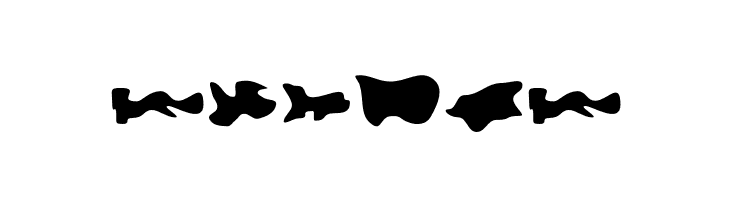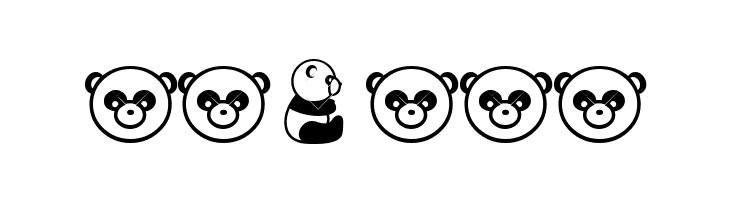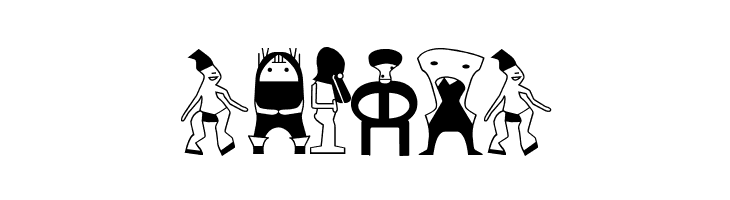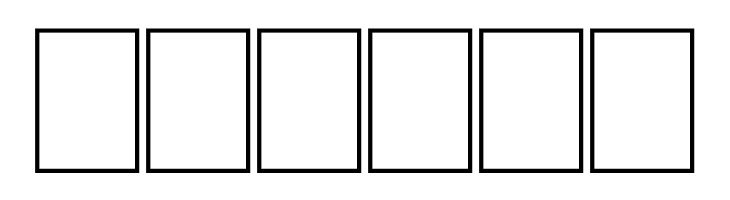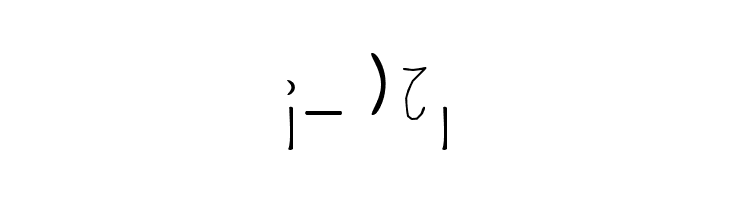
An abstract, bold font with fluid, organic shapes.
A decorative, bear-themed pictogram font.
A decorative font featuring unique doll figures for each character.
A whimsical, character-based decorative font with abstract cartoon figures.
A bold, geometric font with a distinct shadow effect for a three-dimensional look.
A modern, rounded sans-serif font with a clean and approachable style.
Superhero silhouette font with bold, action-packed character shapes.
A display font made from weapon and tool silhouettes, bold and graphic.
An abstract, decorative font with geometric and artistic elements.